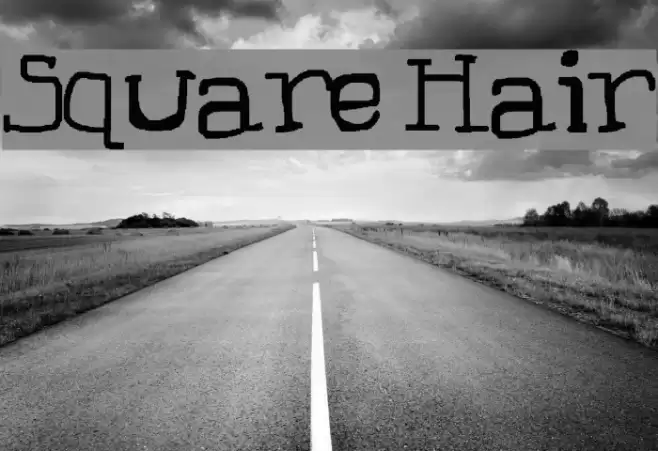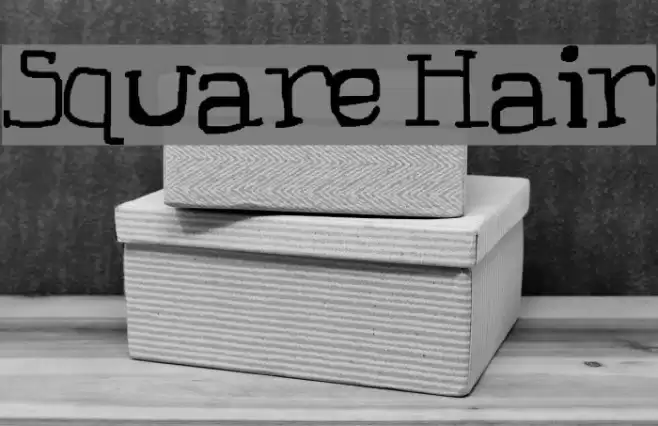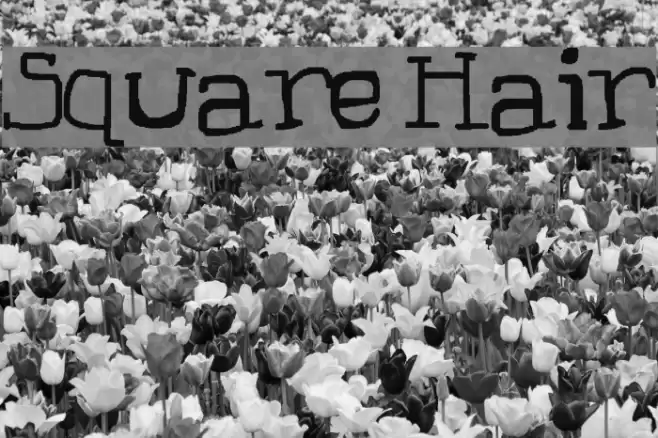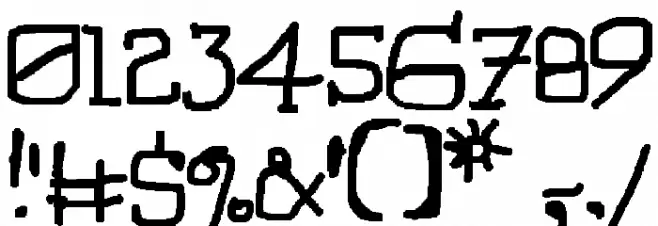
Square Hair Font
Square Hair Description
This font features a unique, hand-drawn style with irregular, playful strokes that give it a whimsical and artistic appearance. The uppercase letters have a slightly angular and geometric form, while the lowercase letters maintain a more rounded and organic shape. The numbers and special characters follow the same playful aesthetic, making the font suitable for creative and informal designs. The overall look is reminiscent of a sketch or doodle, adding a personal touch to any project.
A whimsical, hand-drawn font with playful, irregular strokes from Uncategorized fonts.